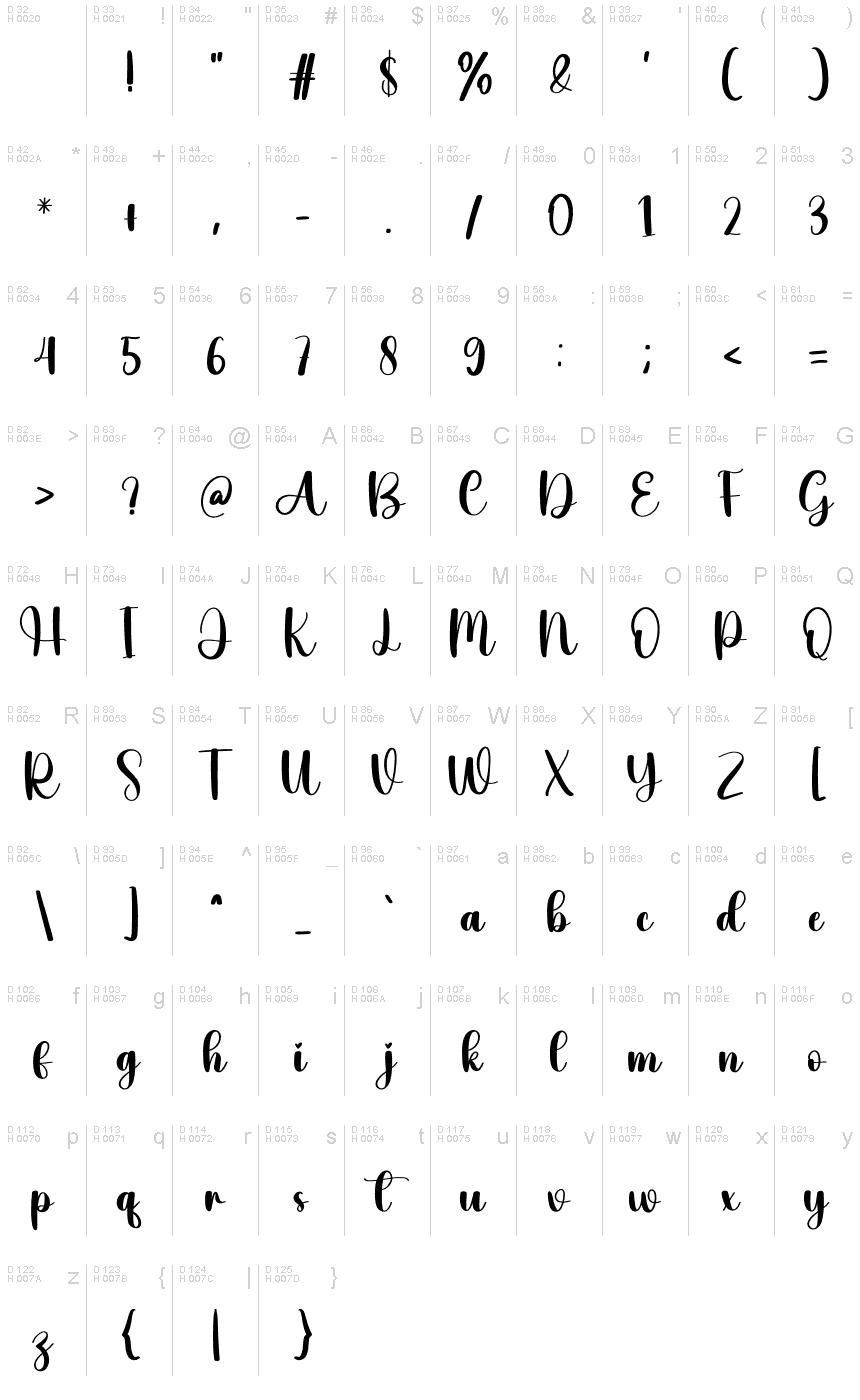
Hello Snowman
Hello Snowman, a bold calligraphy masterpiece from the creative minds at Scratchones, embodies the charm of handcrafted artistry with its flowing elegance and robust presence. This font's sweeping curves and delicate flourishes evoke a sense of whimsical sophistication, making it an ideal choice for projects that require a touch of personalized flair.
The distinct style of Hello Snowman lends itself to a wide array of design ventures. From wedding invitations that demand a stroke of romance to branding materials that aim for an approachable yet polished look, this font stands out with its aesthetic allure. The calligraphic nature pairs beautifully with festive themes, adding an air of celebration to seasonal greetings and holiday marketing.
With its visually striking appearance, Hello Snowman promises to elevate your creative endeavors by infusing them with character and distinction. Whether you're crafting bespoke stationery or enhancing digital graphics, this font's versatility ensures it will resonate across various mediums with memorable impact.